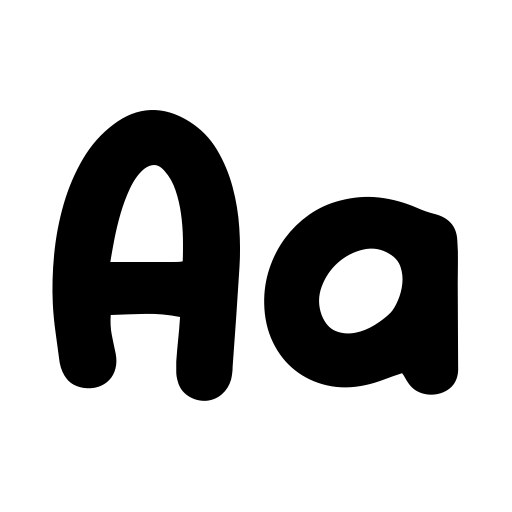
Bambo Butter is a playful and casual handwritten font with a lively, organic feel. Its varied stroke weight and rounded, slightly irregular letterforms make it perfect for creating approachable, friendly designs with a personal touch. This font works well for branding, invitations, and social media where a warm, informal vibe is desired.
Bambo Butter Font